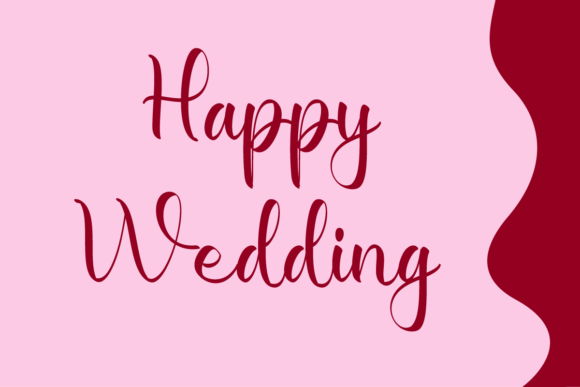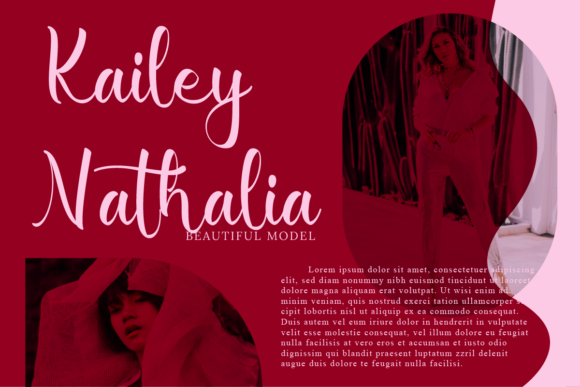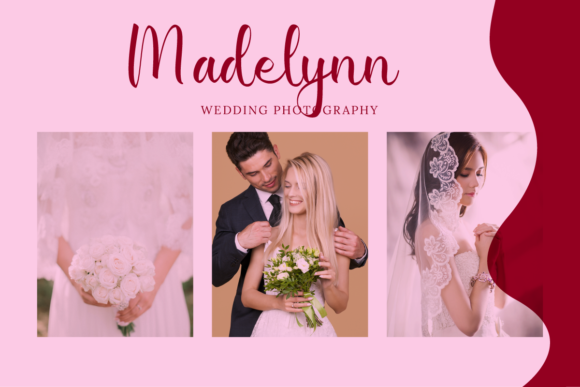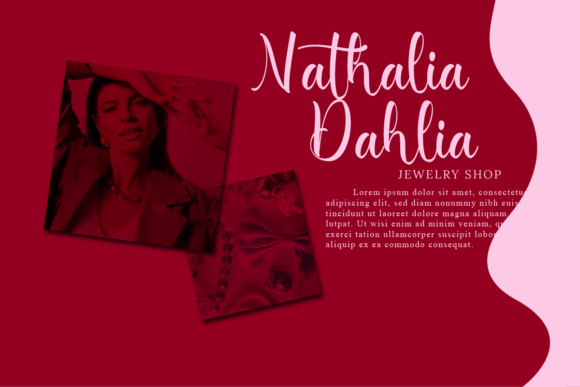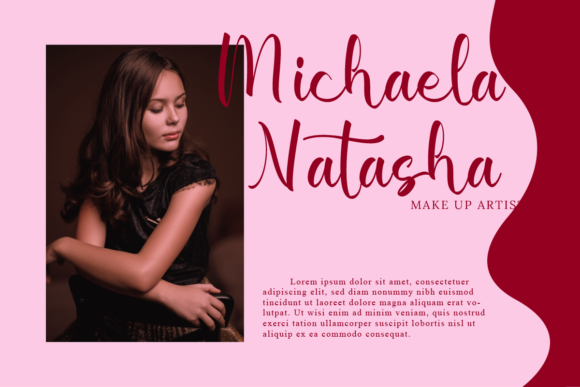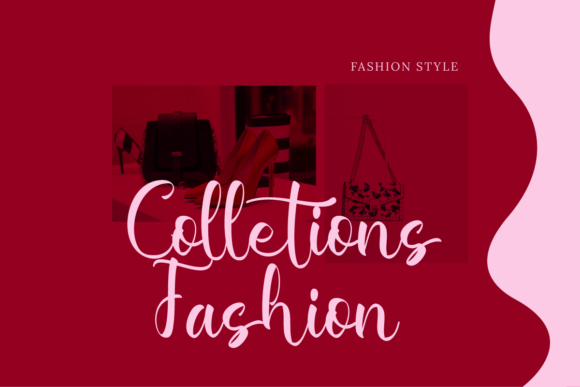
Diya Ashleigh Font: Elevate Your Designs with Elegance and Sophistication
In the world of typography, a font can make or break a design. For designers and crafters seeking to add a touch of elegance and refinement to their projects, the Diya Ashleigh Font is an excellent choice. This beautiful, handwritten font is characterized by its delicate and flowing strokes, making it perfect for a wide range of design applications.
The Beauty of Diya Ashleigh
Diya Ashleigh is a delicate, elegant, and flowing handwritten font that boasts well-balanced characters. Its unique charm lies in its ability to complement a broad spectrum of designs, from feminine and whimsical to sophisticated and luxurious. The font’s gentle curves and refined lines create a sense of movement and fluidity, making it ideal for designs that require a touch of elegance.
Key Features of Diya Ashleigh Font
- Delicate and Elegant: Diya Ashleigh’s flowing strokes and refined lines give it a delicate and elegant appearance, perfect for designs that require a touch of sophistication.
- Well-Balanced Characters: The font’s characters are carefully crafted to ensure balance and harmony, making it easy to read and visually appealing.
- Versatile: Diya Ashleigh’s unique charm makes it suitable for a wide range of designs, from wedding and event stationery to branding and packaging.
- Handwritten: The font’s handwritten nature gives it a personal and organic feel, perfect for designs that require a touch of warmth and personality.
Uses of Diya Ashleigh Font
Diya Ashleigh’s versatility makes it an excellent choice for various design applications, including:
- Wedding and Event Stationery: Create beautiful wedding invitations, save-the-date cards, and event programs with Diya Ashleigh’s elegant and refined strokes.
- Branding and Packaging: Use Diya Ashleigh to add a touch of sophistication to your brand’s logo, packaging, and marketing materials.
- Signage and Display: Diya Ashleigh’s delicate and flowing strokes make it perfect for signage, display ads, and promotional materials.
- Digital Design: Use Diya Ashleigh in digital designs, such as website headers, social media graphics, and email newsletters, to add a touch of elegance and refinement.
Tips for Using Diya Ashleigh Font
To get the most out of Diya Ashleigh, consider the following tips:
- Pair with Contrasting Fonts: Pair Diya Ashleigh with bold and modern fonts to create a striking contrast and add visual interest to your design.
- Use for Headings and Titles: Use Diya Ashleigh for headings and titles to add a touch of elegance and sophistication to your design.
- Experiment with Colors: Experiment with different colors and textures to add depth and visual interest to your design.
Diya Ashleigh Font is a beautiful and elegant handwritten font that can elevate your designs with its delicate and flowing strokes. Its versatility and unique charm make it suitable for a wide range of design applications, from wedding and event stationery to branding and packaging. With its well-balanced characters and refined lines, Diya Ashleigh is an excellent choice for designers and crafters seeking to add a touch of sophistication and elegance to their projects.